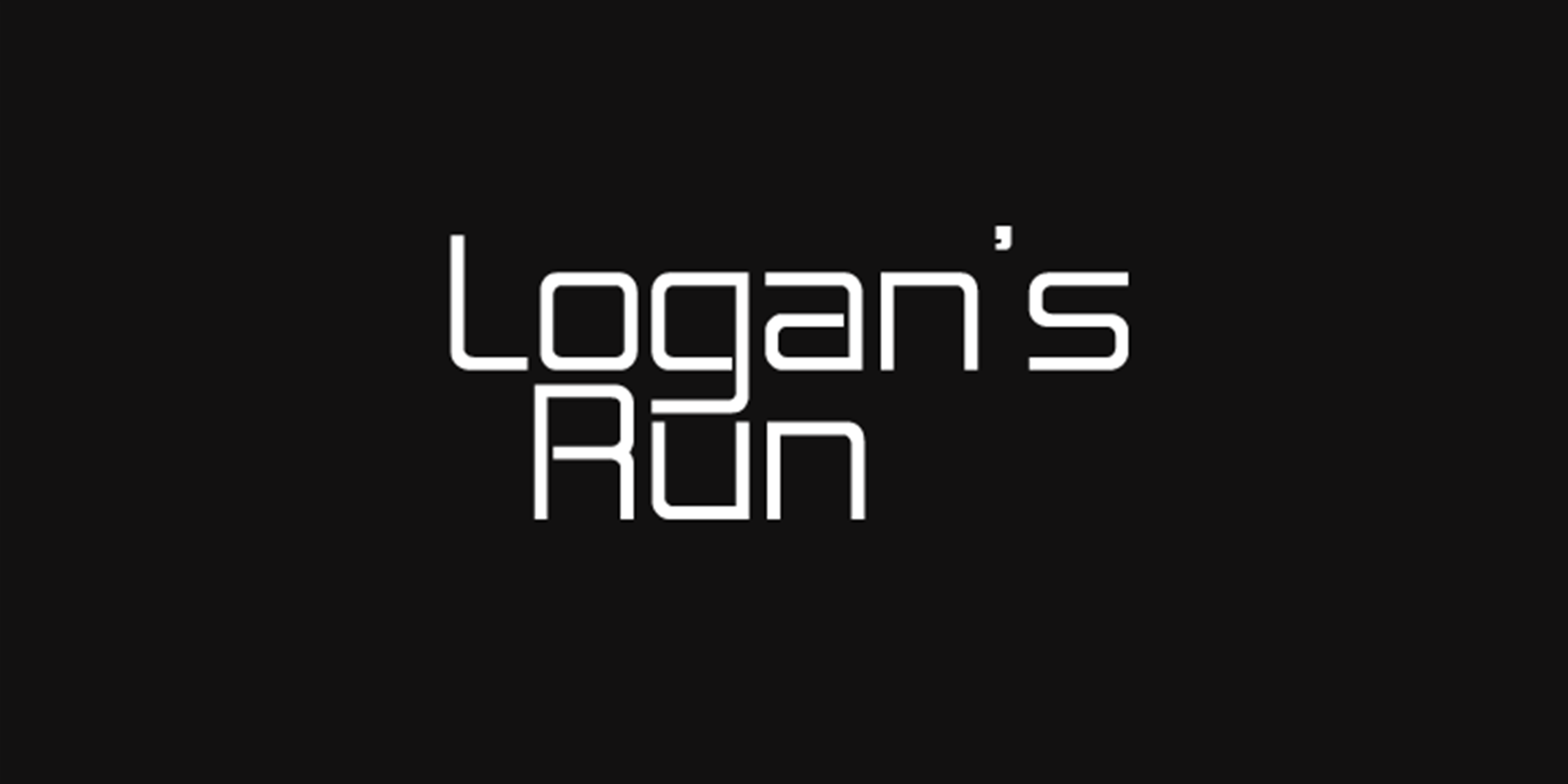
The LoganFive Font is a sleek, modern, and often slightly futuristic sans-serif typeface, designed to convey precision, innovation, and a cutting-edge aesthetic. Its clean lines, geometric structure, and often condensed or impactful forms make it an excellent choice for tech company branding, gaming interfaces, sci-fi movie titles, automotive advertising, digital displays, and any project that aims for a contemporary and forward-thinking feel. Whether you’re crafting a sophisticated app UI or a dynamic brand identity, this font will imbue your project with a sense of intelligence and modern design.
What makes the LoganFive Font so exciting is its exceptional ability to blend minimalist design with a strong visual presence. It often features well-defined letterforms and precise spacing, ensuring outstanding legibility across various screen sizes and print mediums. This font is perfect for designers who prioritize a clean, organized, and highly versatile visual identity that feels both current and authoritative. It stands out by offering a subtle yet distinct personality, making any text it graces feel incredibly precise and thoughtfully designed. The inherent clarity and sophisticated simplicity of the LoganFive Font ensure that your message is communicated with undeniable elegance and directness.
The LoganFive Font typically offers a comprehensive family to support diverse design needs. While specific variations may depend on the font package, you can generally expect to find a range of weights such as Thin, Light, Regular, Medium, SemiBold, and Bold, providing extensive options for hierarchy and emphasis. Many versions of the LoganFive Font Free Download also include corresponding Italic or Oblique styles for each weight, adding dynamic flexibility for emphasis and stylistic variation. Additionally, some premium packages might offer Condensed or Extended widths, various figure styles (e.g., lining, old-style), and potentially even alternate characters for specific glyphs, allowing for more nuanced and custom typographic solutions. This extensive family ensures that the LoganFive Font can be adapted to almost any design requirement, maintaining a consistent, modern, and highly functional aesthetic throughout your project.